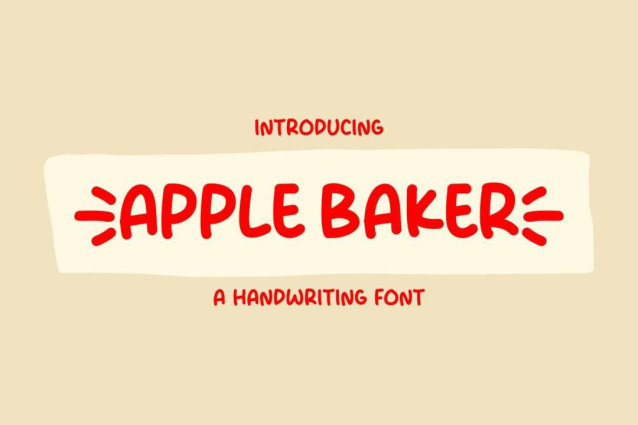
Apple Baker Font
Apple Baker Font a sweet and friendly handwritten font. Cute and fun, this font is ideal for writing wedding invitations, cards, or any other design that might need a fun touch!